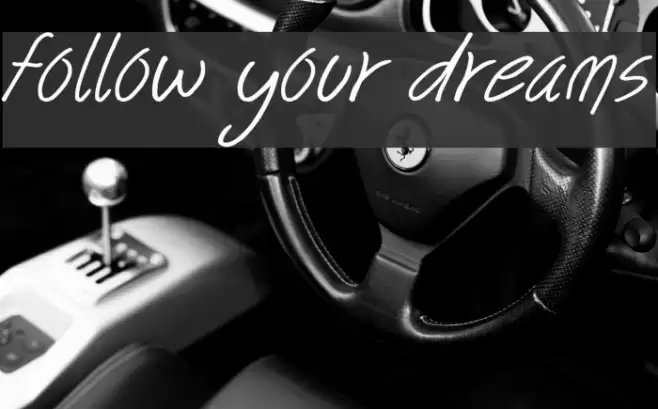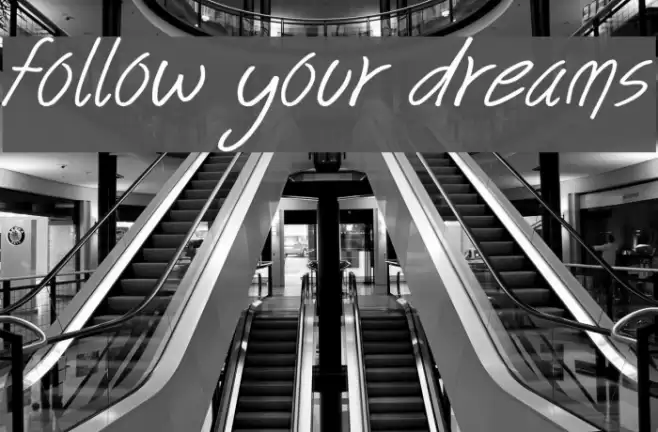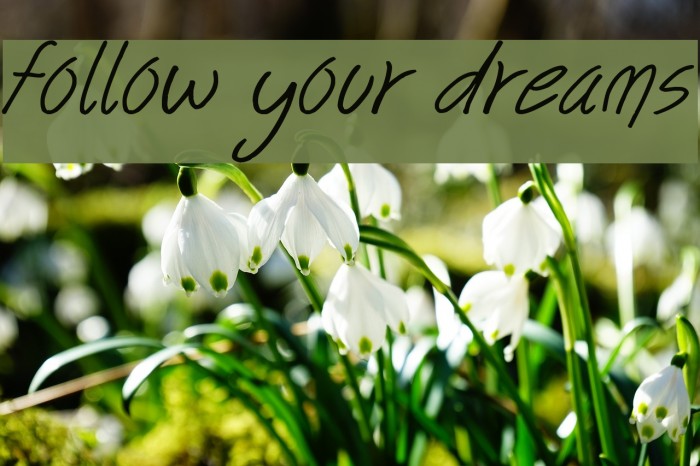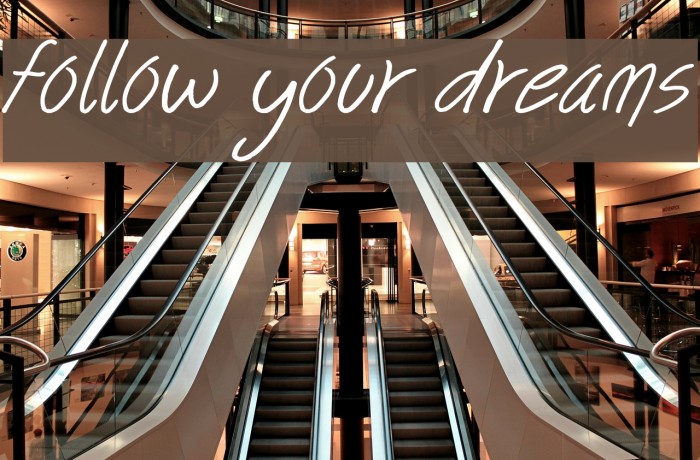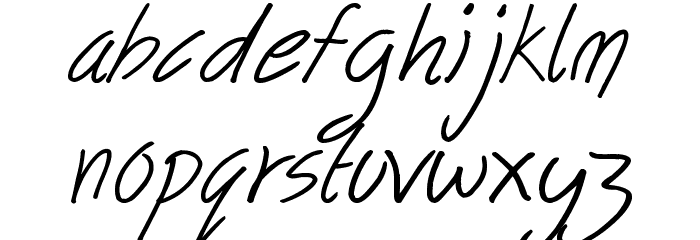
follow your dreams Font
follow your dreams Description
This font features a flowing, cursive style that exudes elegance and sophistication. The letters are interconnected with smooth, sweeping strokes that create a sense of fluidity and grace. The uppercase and lowercase letters maintain a consistent style, with a slight slant that adds to the dynamic appearance. The numerals are bold and clear, complementing the script style of the alphabet. Special characters are designed with the same attention to detail, ensuring a cohesive look across all glyphs. This font is ideal for projects that require a touch of class and refinement.
A flowing, elegant cursive font with interconnected strokes from Uncategorized fonts.
- ( Font by Jonathan Harris - www.tattoowoo.com FREE )
- Proposed Projects: Ideal for wedding invitations, elegant branding, and sophisticated stationery.
- Overall Style: Elegant
- Use Case: Logos, Invitations, Decorative text